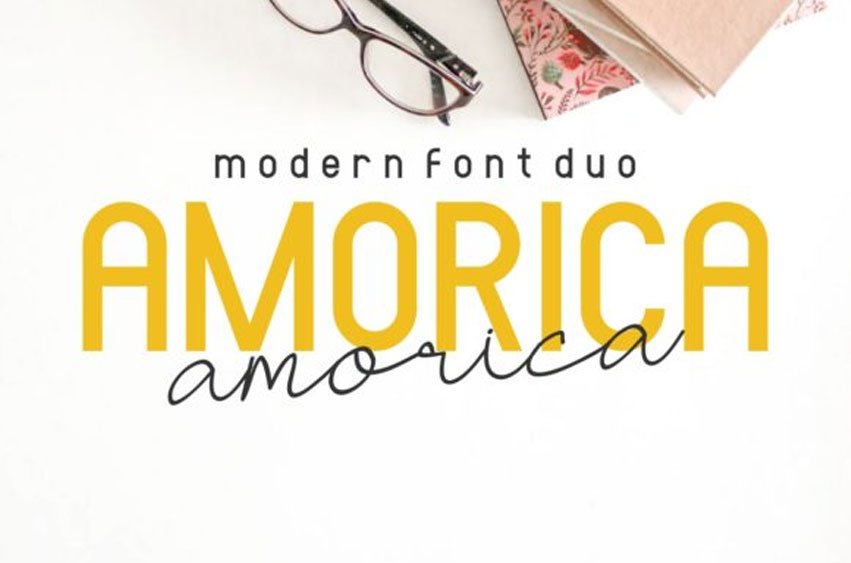
Amorica Font
Amorica Font is a beautiful font duo, consisting of a sans serif font and a stunning script. It comes with a contemporary and light feel.
Use it to add a classy and smart feel to any creative project!